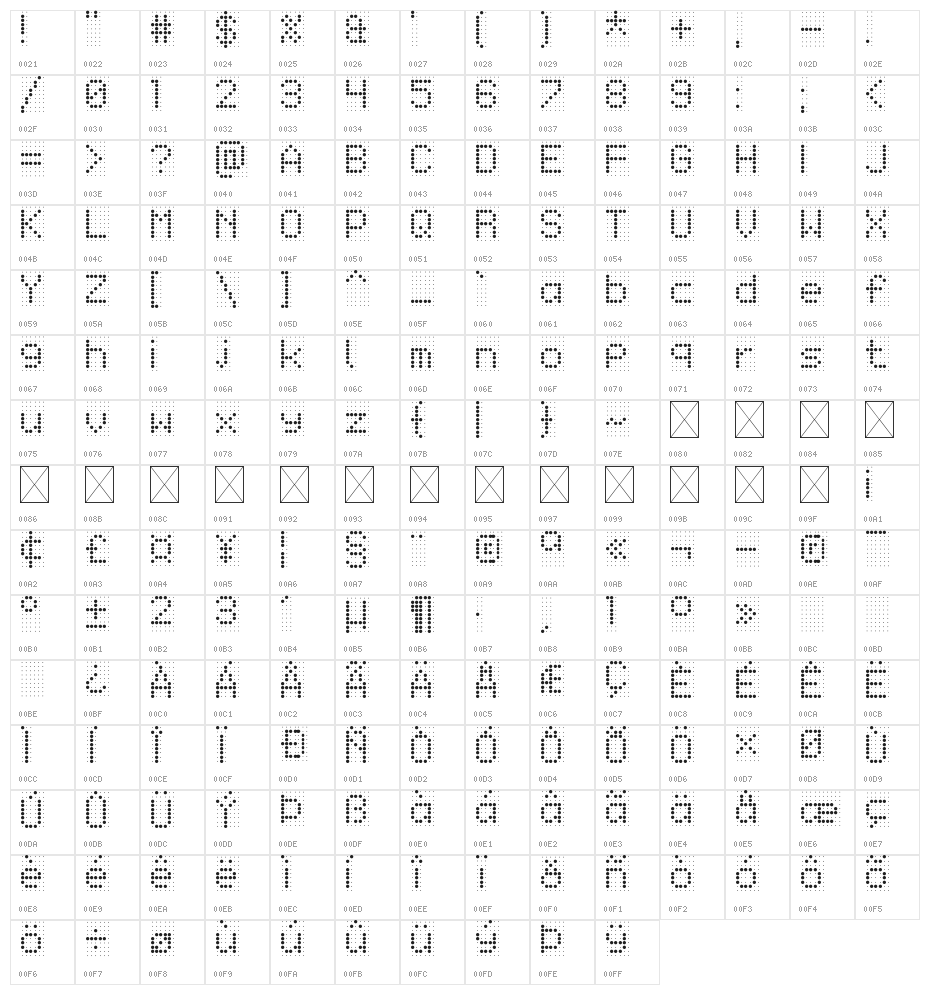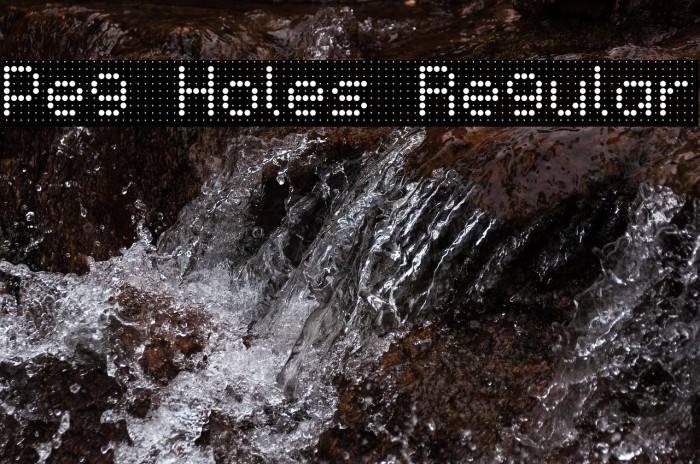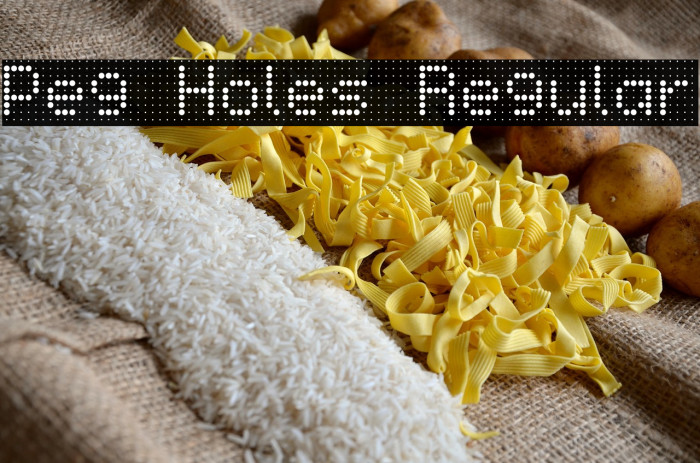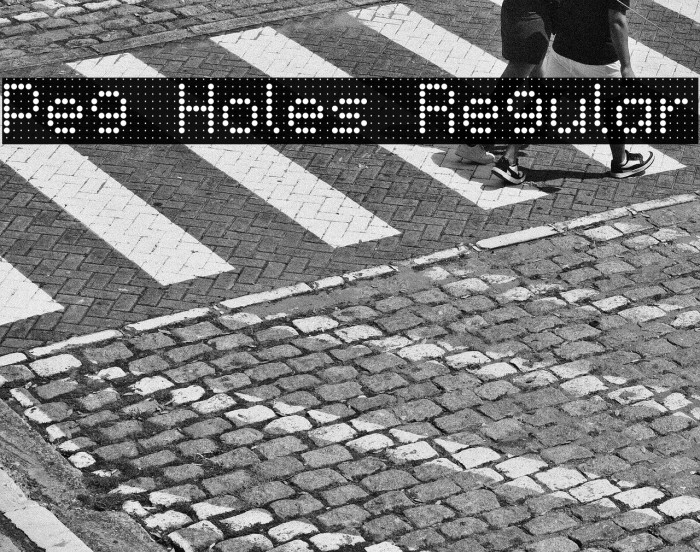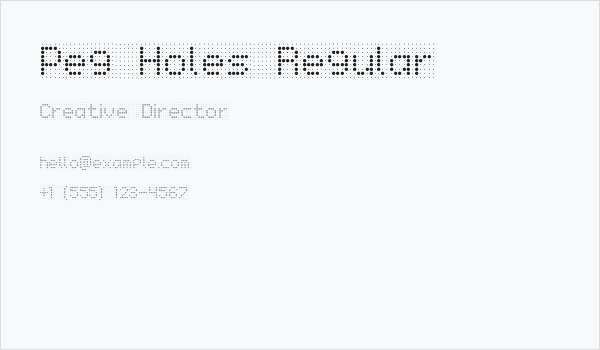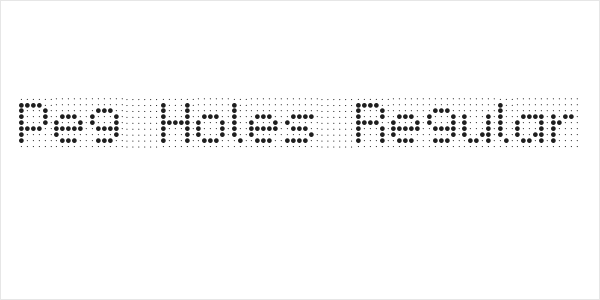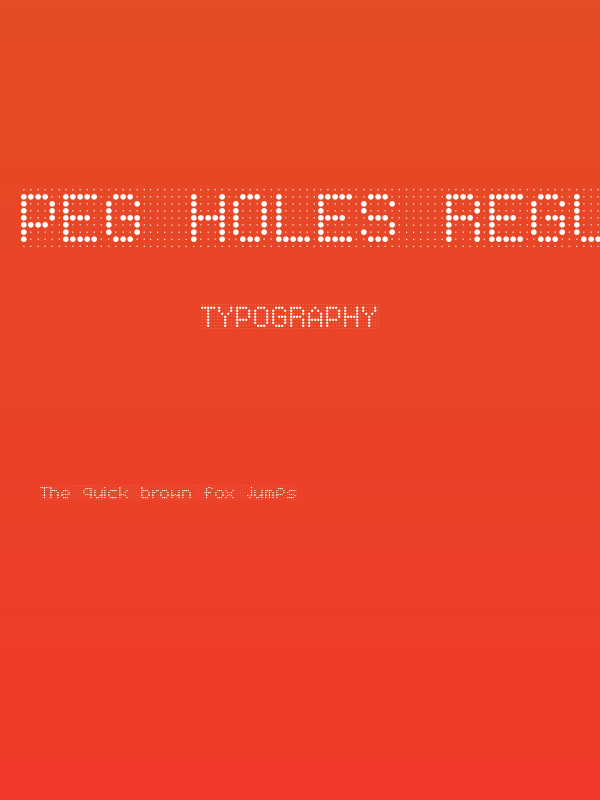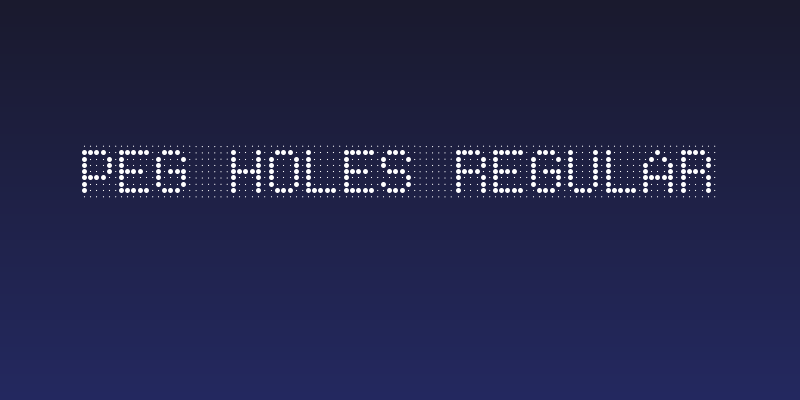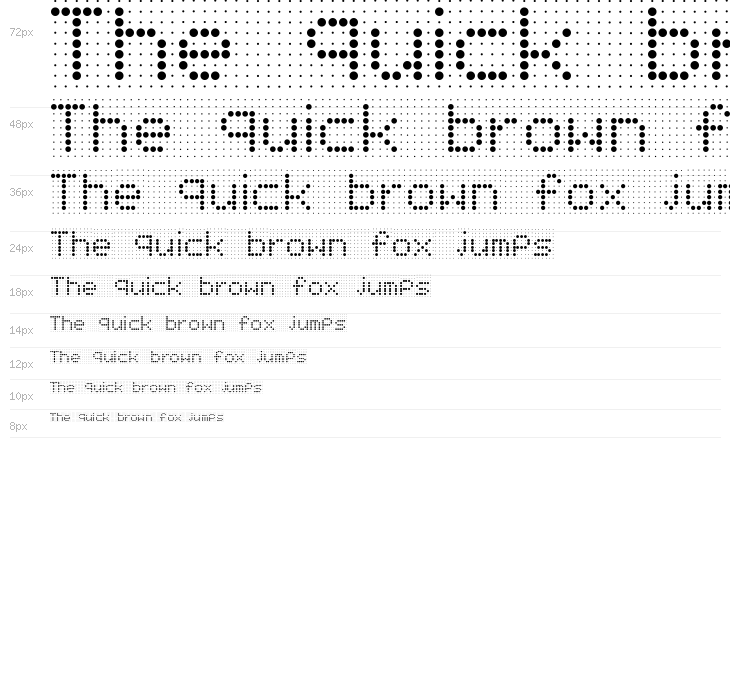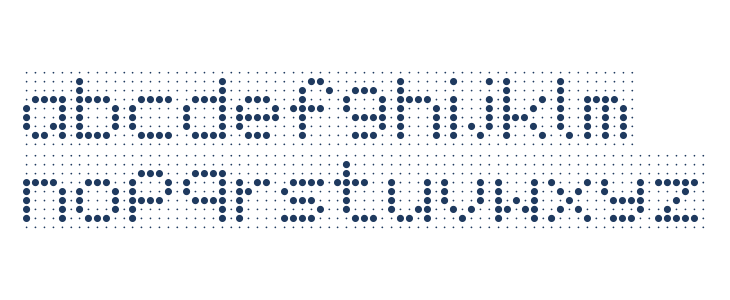
Peg Holes Regular Font
Peg Holes Regular Description
This font features a unique design where each character is constructed using a grid of dots, creating a pegboard-like appearance. The letters and numbers are evenly spaced and maintain a consistent size, giving the font a uniform and structured look. The use of dots provides a playful yet modern aesthetic, making it stand out in digital and print media. The characters are easily recognizable despite their unconventional formation, ensuring readability while adding a decorative touch. This font is ideal for projects that require a distinctive and eye-catching style.
| Use Case | Logos, Headlines, Digital displays |
| Proposed Projects | Ideal for digital displays, creative posters, modern art projects, and educational materials. |